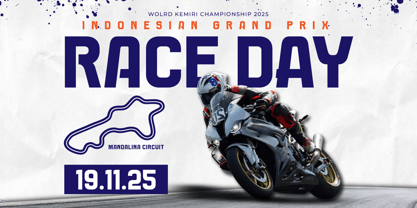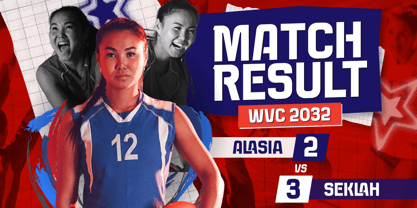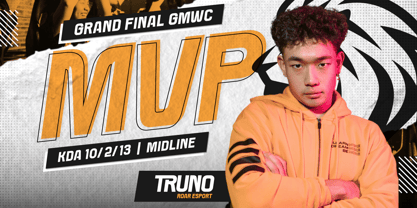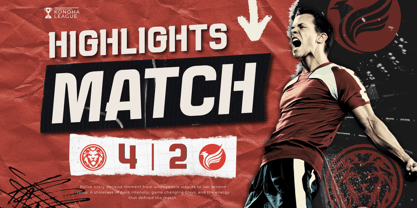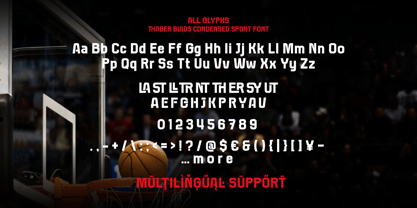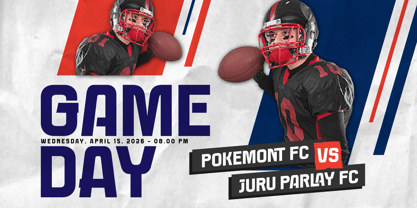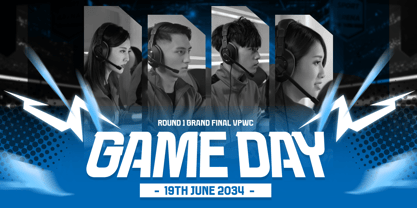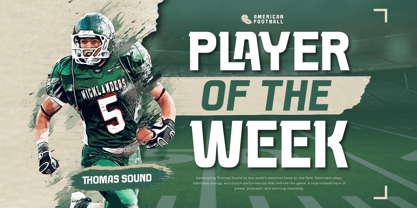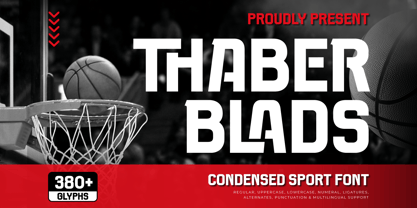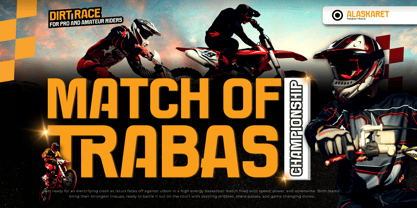
Thaber Blads
by Twinletter
The Thaber Blads Font Family was designed by Rozikan and published by Twinletter. Thaber Blads contains 4 styles and family package options. More about this family
Thaber Blads is a super-bold Condensed Sport Font typeface, designed to inject maximum energy and impact into every athletic visual. Its dense, powerful letterforms visually capture the spirit of unrelenting competition, strength, and speed, making it the perfect choice for sports branding that needs to look aggressive and unforgettable. Geometrically constructed with an extremely condensed structure and sharp edges, this font is engineered for clarity and bold presence, especially in large uppercase titles and displays. Its tight structure and blocky nature help capture the intensity of fast-paced sports, including football, racing, basketball, and esports. It performs exceptionally well in athlete highlights, scoreboards, and dynamic promotional media. Featuring over 380 glyphs, alternates, ligatures, and multilingual support, Thaber Blads offers professional versatility for designers. The typeface brings the feeling of adrenaline, momentum, and athletic power into every design. Ideal for esports graphics, team posters, race announcements, and dynamic editorial layouts, this font guarantees a modern, professional, and maximally impactful aesthetic. What’s Included: - All glyphs and Feature - We highly recommend using design software that supports OpenType features and Glyphs panels to access all the stylistic variations easily. - PUA Encoded: All glyphs are fully accessible without any additional software. - Multilingual Support: Fully supports 85+ languages